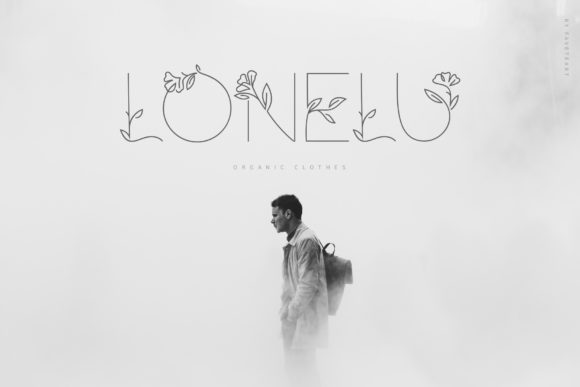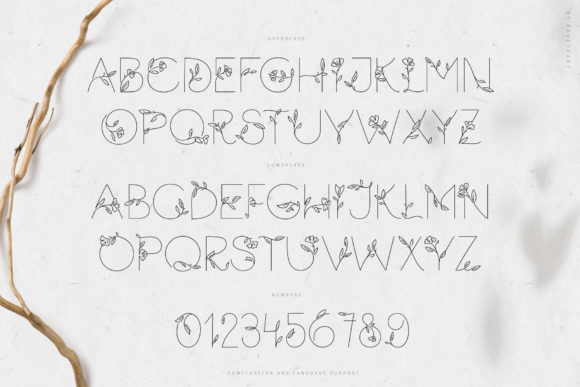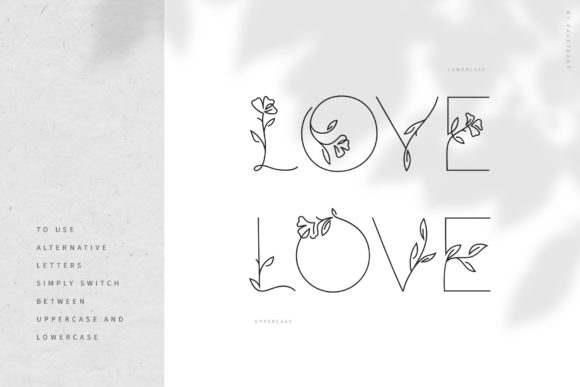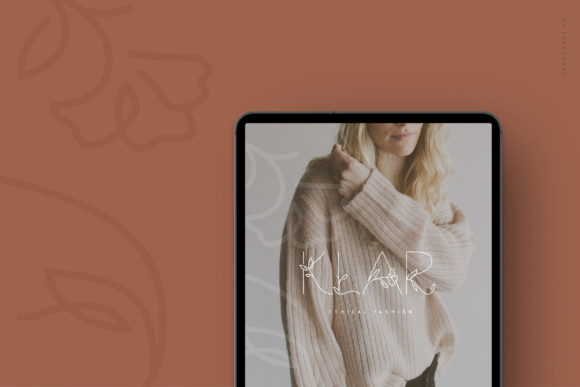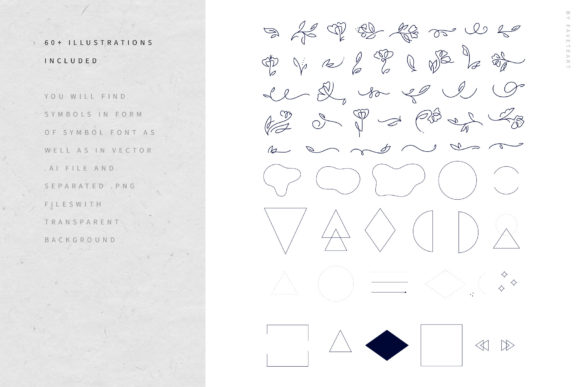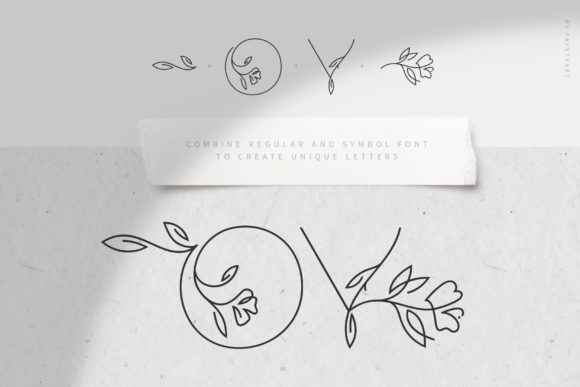
Introduction to Florium Font
Florium is a splendid duo font (decorative and dingbats), perfect for creative minds and floral projects.
The characters are elegant, stylish, and filled with floral decorations It is a great typeface for adding life to your designs.
Key Features of Florium Font
Why Choose Florium Font?
Florium Font offers exceptional quality and versatility, making it a valuable addition to your design toolkit. Whether you’re creating for personal projects or commercial use, Florium Font delivers professional results.